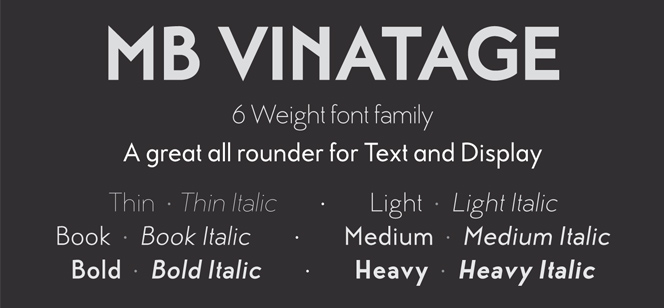
MB Vinatage font
MB Vinatage font by Ben Mecke-Burford (M-B Creative type foundry) is designed completely in the spirit of the 1920s’ typography traditions. This Sans Serif font family comes in 12 variations – 6 weights, from Thin to Heavy, plus their italics. MB Vinatage font is perfect for display designs in combinations with Thin and Heavy weights. It also keeps high legibility at smaller sizes.
MB Vinatage typeface family features some art deco details in the standard caps like the N and the low bars on the E, F & H, but using the stylistic alternates these can be changed to give the font a more contemporary appearance. The same applies to the lower case letters, with an alternate a and g and a stylistic lowercase t.
MB Vinatage font family offers extended language support and many OpenType options.
Ben Mecke-Burford is English type designer, founder of the M-B Creative type foundry. See also his MB Picture House font.
Designers: Ben Mecke-Burford
Publisher: M-B Creative